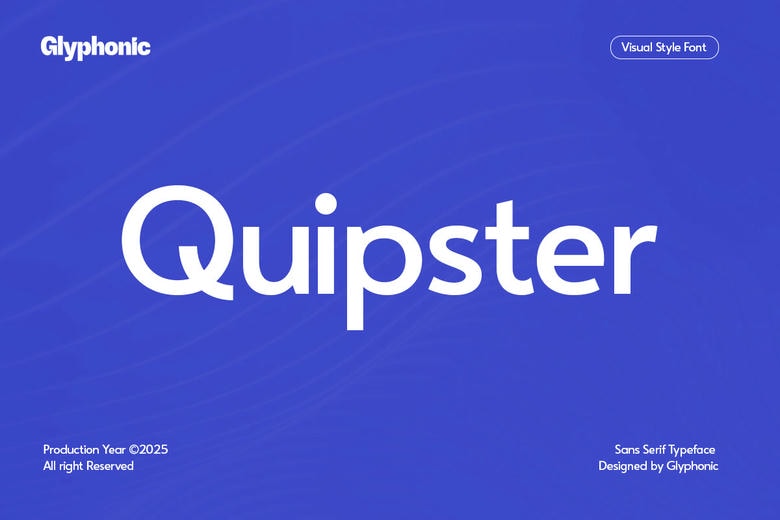
Quipster Font
Quipster is a contemporary modern sans serif font that embraces the eras of both modern grace and future flair. It fits perfectly into headlines, branding, logos, presentation, packaging, editorial layouts and is designed to make an impression.
High contrast strokes, modern sans, and future style, Quipster is a personality-filled and sophisticated font that refuses to stay put on the design. Be it fashion, lifestyle, or artistic visual design, this typeface is versatile, as well as sophisticated.
Quipster Sans Serif Font